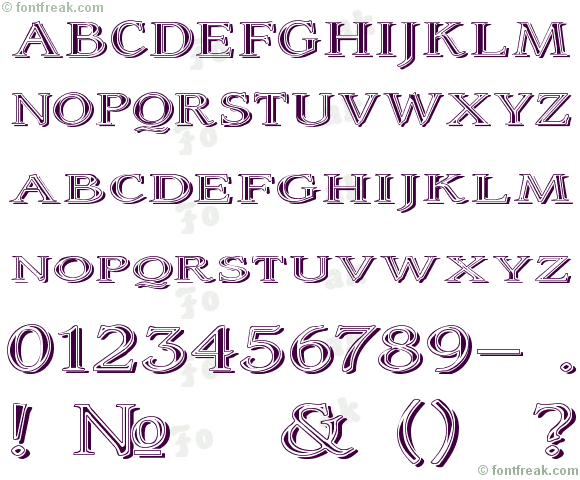
Coltaine No. 2, designed by Paul Lloyd, is a striking display font that exudes a sense of elegance and sophistication. As a decorative serif typeface, it features refined stroke weights and contrasting elements that enhance its visual appeal. The font showcases a unique interplay of thick and thin lines, contributing to a dynamic and eye-catching design. The spacing between characters is meticulously crafted, ensuring readability while retaining its artistic flair. Decorative elements, such as the subtly embellished serifs, add a touch of charm, making it stand out in various applications.
This font is particularly well-suited for a range of creative projects. It shines in wedding invitations, where its elegant curves and sophisticated style capture the essence of romance. Additionally, Coltaine No. 2 is an excellent choice for movie posters, lending a dramatic flair that can elevate any film's branding. Restaurant menus can also benefit from this font, as it adds a touch of class that complements gourmet dining experiences. Furthermore, content creators looking to enhance their digital presence will find that this font brings a unique character to social media graphics and blog headers.
In conclusion, Coltaine No. 2 stands out due to its distinctive visual characteristics and versatility across different media. Whether you're crafting an elegant invitation or a bold poster, the Coltaine No. 2 font free download provides the perfect touch to elevate your design work, making it a valuable addition to any typography collection.